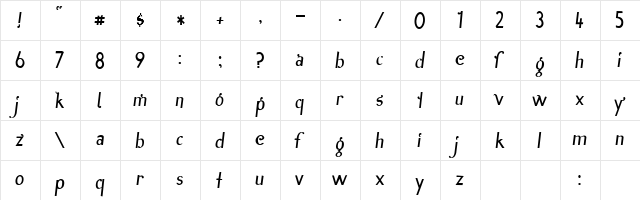
Inn Regular
Design Context for Inn Typeface
Inn takes a measured approach to typography — its balanced proportions and neutral character make it a reliable workhorse for both digital and print work.
Pro Tip: Use Inn in both headline and body roles to test its range before committing to a single application.